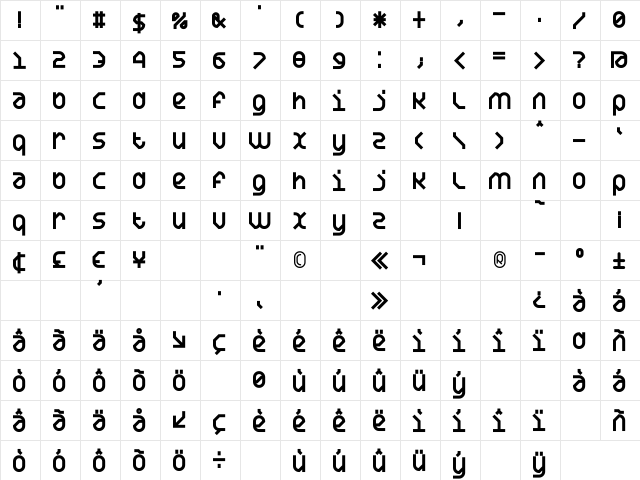
DS Yakuti65 Regular
Design Context for DS Yakuti65 Typeface
DS Yakuti65 is a composed and adaptable typeface that performs quietly and consistently across a wide range of design contexts.